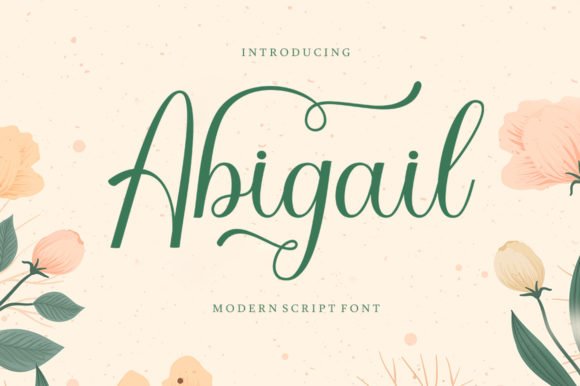
The Magic of Handwritten Fonts: Bringing Your Designs to Life
Have you ever stared at a blank canvas, waiting for that perfect spark to ignite your creativity? It’s a feeling many designers know all too well. But what if I told you that the key to unlocking your most innovative ideas lies in a single, elegant font? Enter the enchanting Abigail Font, a delicate and flowing handwritten font that has captured the hearts of designers worldwide.
With its beautiful, well-balanced characters and stunning alternates, the Abigail Font is the perfect addition to any design project. Whether you’re creating a wedding invitation, a branding logo, or a marketing brochure, this versatile font is sure to elevate your work to new heights. Its smooth lines, gorgeous glyphs, and varying baseline make it an invaluable tool for designers seeking to add a touch of sophistication and elegance to their designs.
Abigail Font Key Features
- Font Family: Abigail Font is a script font designed by unknown, but a similar font is available from MyFonts.
- Unique Characteristics: Abigail Font features a beautiful, handwritten script style with elegant connections and subtle flair, making it perfect for invitations, quotes, and other creative projects.
Designer Review: Abigail Font
Abigail Font, a beautiful script typeface, has caught my attention with its elegant and refined design. ✨ The fluid connections between letters create a sense of movement and fluidity, making it perfect for titles and headings. The subtle variations in letterforms give it a unique and personal touch.
- ✨ The font is highly legible, even at small font sizes, making it ideal for body text.
- ✨ Abigail Font comes in a range of weights, from light to bold, offering versatility for different design needs.
- ✨ The font is well-suited for a variety of industries, including fashion, beauty, and lifestyle.
However, there are some limitations to consider: ⚠️ The font may not be suitable for technical or scientific content due to its cursive nature. Additionally, the font’s complexity may make it difficult to use in certain design software.
Overall, Abigail Font is a stunning typeface that can add a touch of sophistication to any design. While it may not be suitable for all types of content, it is an excellent choice for creative projects that require a unique and elegant look.
Abigail Font is a beautiful, elegant font that is perfect for:
- Formal event invitations and announcements
For the most effective use of Abigail Font, keep the following tips in mind:
- Use it sparingly to add elegance and sophistication
- Pair it with other elegant fonts for a
Alternatives to Abigail Font
Abigail Font is a beautiful, elegant script font. However, sometimes you may need to explore other options for your design projects. Here are some alternatives to Abigail Font:
Carolyna Pro is a high-end script font that exudes luxury and sophistication. It’s perfect for creating elegant invitations, wedding stationery, and other high-end designs. Compared to Abigail Font, Carolyna Pro has a more refined and polished look, making it ideal for premium designs. Use Carolyna Pro when you need a high-end, elegant script font for your designs.
Alex Brush is a beautiful, handwritten font that’s perfect for creating a personal and approachable feel in your designs. It’s ideal for use in wedding invitations, greeting cards, and other social stationery. Compared to Abigail Font, Alex Brush has a more casual and friendly tone, making it perfect for designs that need a more relaxed feel. Use Alex Brush when you need a friendly, handwritten font for your designs.